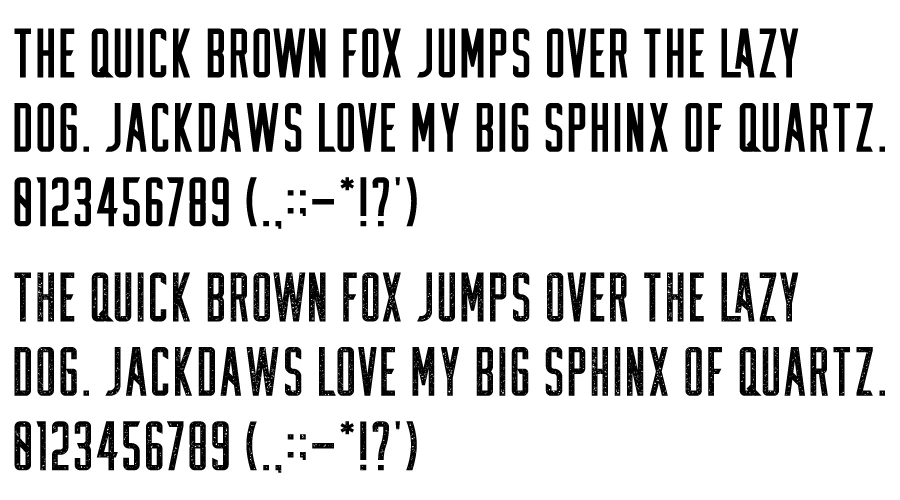
Lakers is a multipurpose condensed uppercase sans serif typeface font designed by Gfonts. It has a nice and unique typeface with two styles (Lakers Regular and Lakers Textured). For its classic all-caps sans serif font, Lakers can be used for different purposes – from the design of cute postcards to use in any old-school logo.
With 67 language support Lakers is very much able to attract the audience. The textured style adds more novelty to this font and enhances its attractiveness. Azonix font is mostly similar to the Lakers.
Lakers is perfect for designing purposes like quotes, Logo, Banner, Brochure, Poster, Headline, Presentation, and many more. YouTubers can also benefit from this font. They can use this font in their YouTube thumbnails as well as in their channel art.
What type of font is Lakers?
Ans: Lakers is a multipurpose condensed uppercase sans serif typeface font with two styles (Lakers Regular and Lakers Textured).
Is there any font similar to Lakers in Google Fonts?
Ans: Yes, It has. The closest similar alternative in Google fonts to Lakers is Teko.